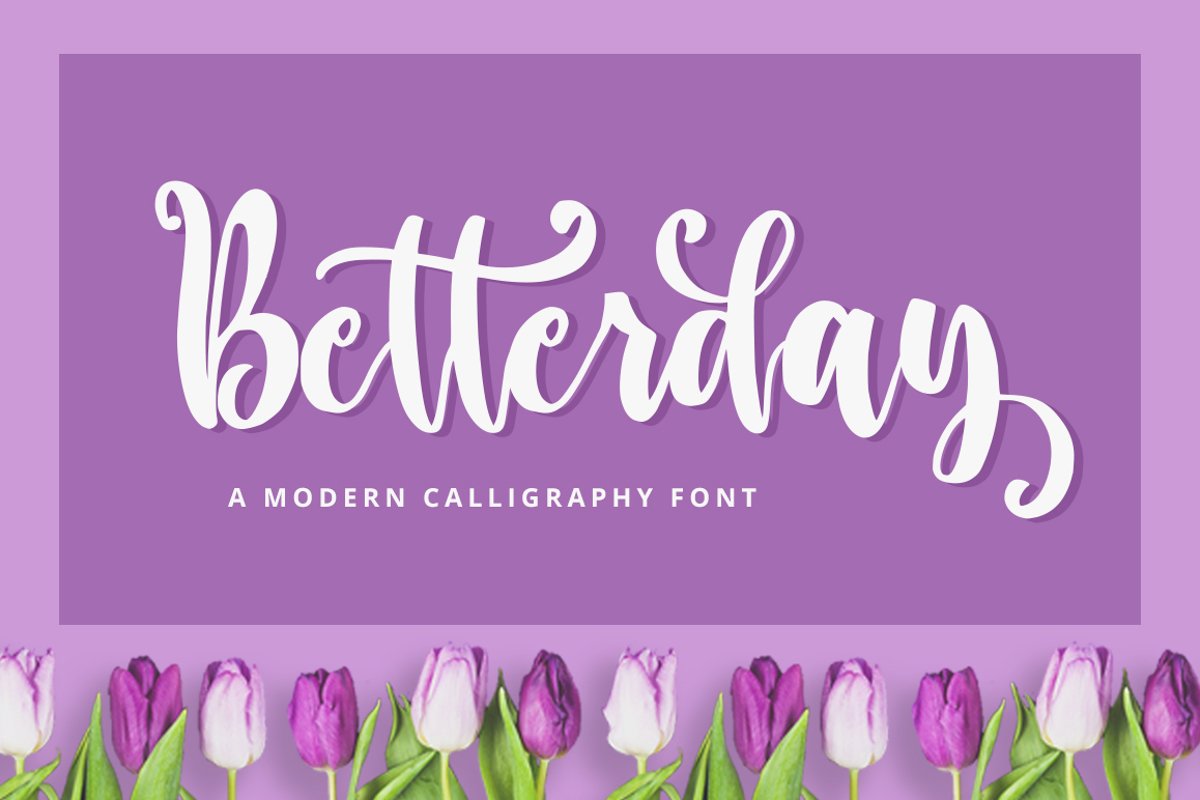
Betterday Script
Betterday
Betterday is a flowing handwritten font, described by an elegant touch, perfect for your favorite projects. Fall in love with its incredibly distinct and timeless style and use it to create spectacular designs!
This font is PUA encoded which means you can access all of the cute glyphs and swashes with ease! It also features a wealth of special features including alternate glyphs and ligatures.